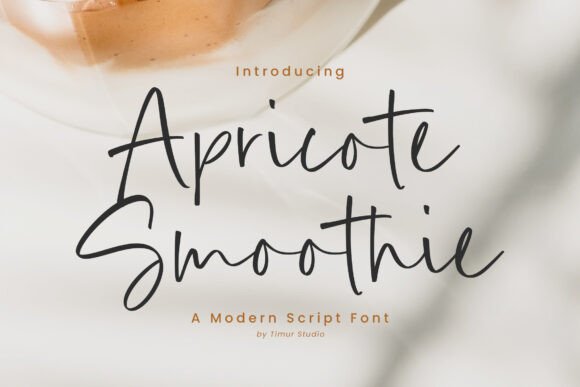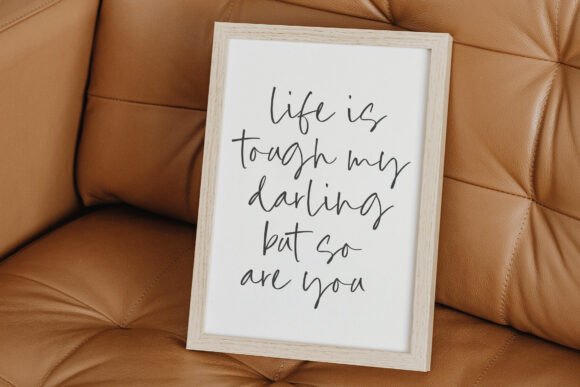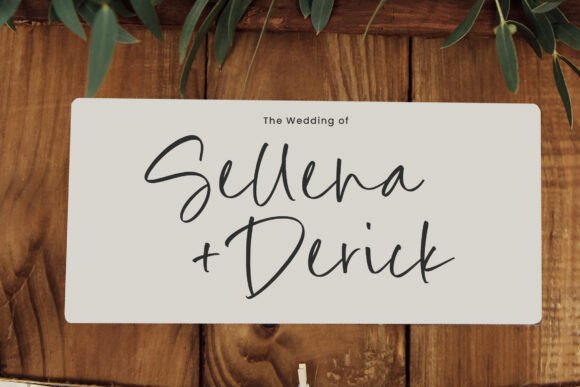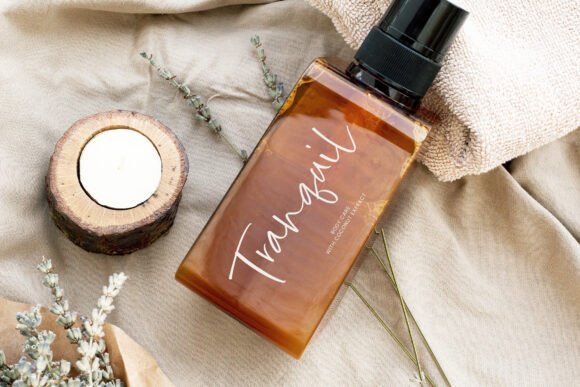
Apricote Smoothie Font: Elegant Handwritten Script for Branding & DIY
About the Apricote Smoothie Font
From logos to headlines, the Apricote Smoothie Font is the perfect choice for making a lasting impression. Apricote Smoothie
is a stylish and elegant modern script font with a smooth, flowing design. Its delicate curves and handwritten aesthetic make it perfect for branding, invitations, logos, and social media graphics. The font balances sophistication with a playful charm, offering a contemporary yet timeless appeal.
Apricote Smoothie excels in applications requiring a touch of elegance and playfulness, such as logos, invitations, short headlines, and social media posts. Its delicate nature makes it less suitable for large bodies of text or UI elements where readability is paramount. Avoid using it for lengthy paragraphs or website copy.
To enhance its impact, pair Apricote Smoothie with a clean sans-serif like Lato for a modern contrast, or a classic serif such as Garamond for a more timeless feel. A geometric sans-serif would also provide a striking counterpoint to its flowing forms.
The font’s overall personality is sophisticated yet approachable; it conveys a sense of friendly elegance, making it ideal for brands targeting a refined but not overly serious audience.
Apricote Smoothie Font Usage Examples
Apricote Smoothie Font Example